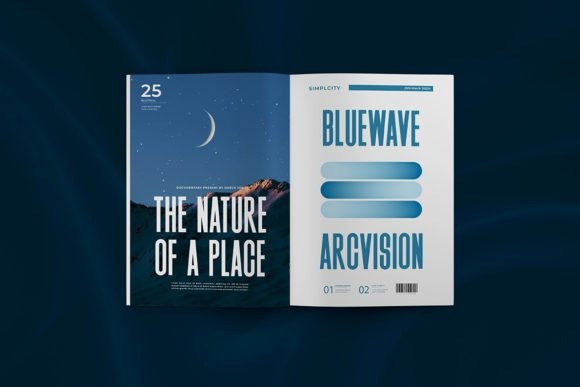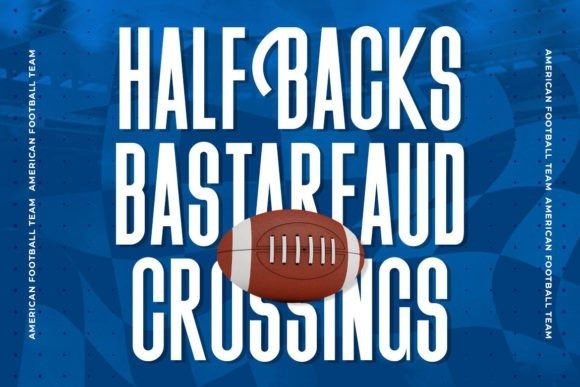
Maglitoon Font
Maglitoon Font delivers a perfect balance of elegance and impact. Each letter exudes strength and confidence, making it an excellent choice for headlines, logos, branding materials, and more.